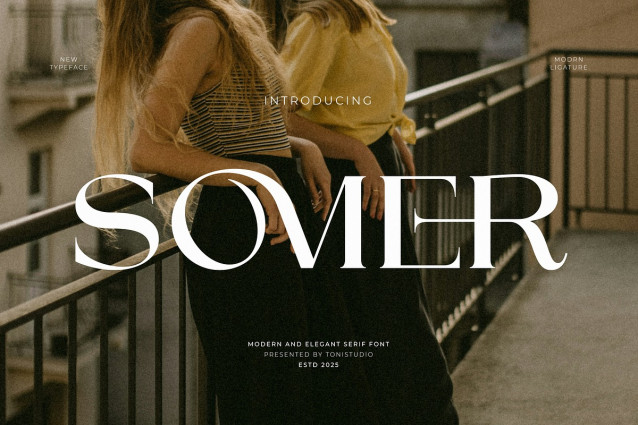
Somer Serif Font
Somer Serif Font is a graceful and modern serif, with subtle details and bold-thin contrasts that reflect the moment. Each curve of its letters is designed to convey a sophisticated, feminine, and professional feel—making it a perfect choice for logos, luxury branding, and designs that want to appear sophisticated. Suitable for ,Logo & brand identity,Product packaging & labels,Wedding invitations & stationery,Instagram & social media content,Editorial & elegant visual displays